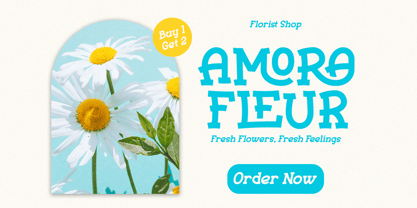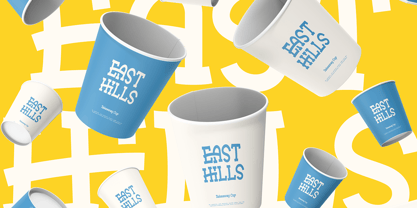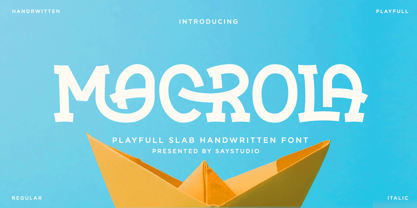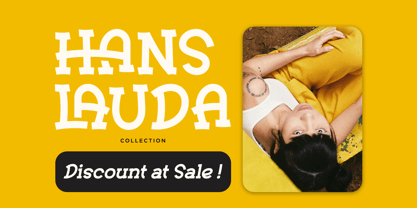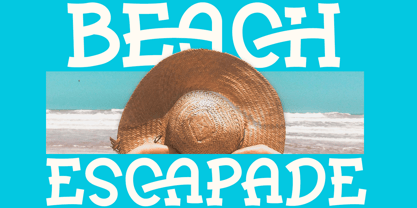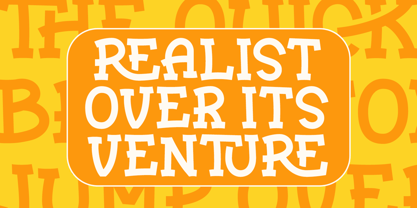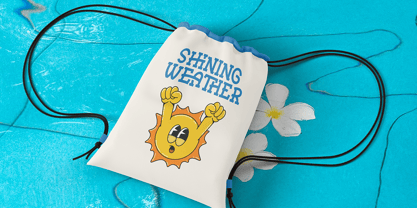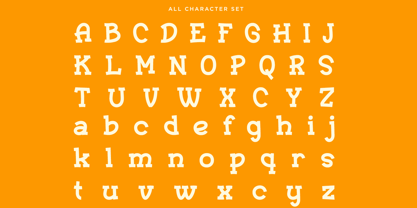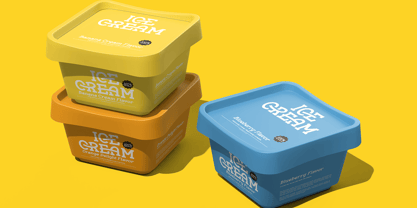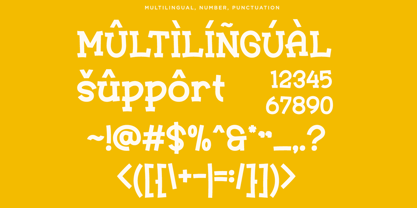
Macrola
The Macrola Font Family was designed by Mussyayin and published by Say Studio. Macrola contains 2 styles.
Macrola is a playful slab serif font with bold serifs and lively shapes. Perfect for logos, posters, packaging, and branding, it blends a fun personality with modern style. With strong readability and a creative flair, Macrola is ideal for both digital and print designs that need a warm, approachable touch. File Included : - Macrola Regular - Macrola Italic - Stylistic ligatures - Multilingual Support Thanks, Have a nice day Say Studio